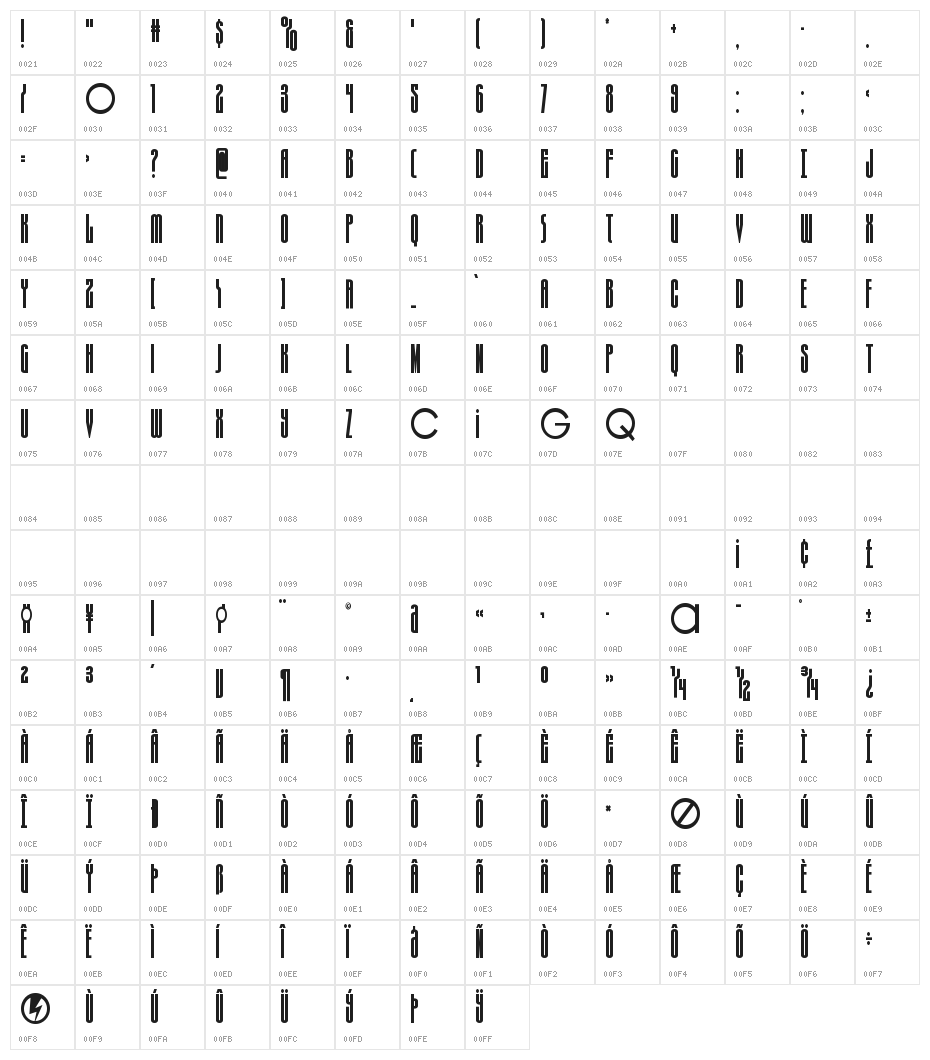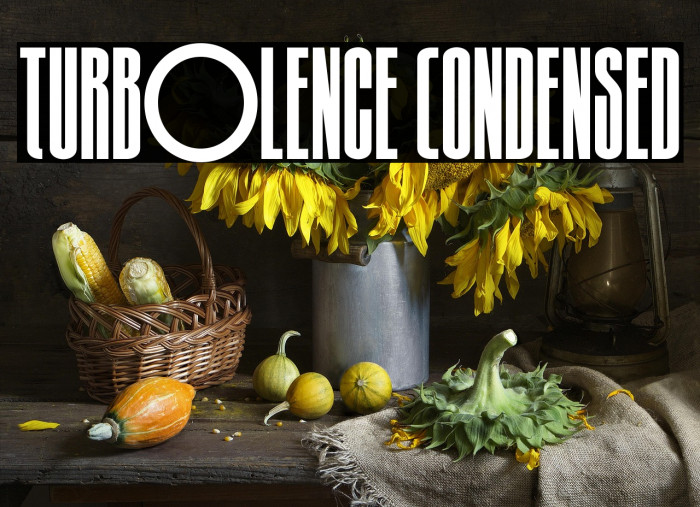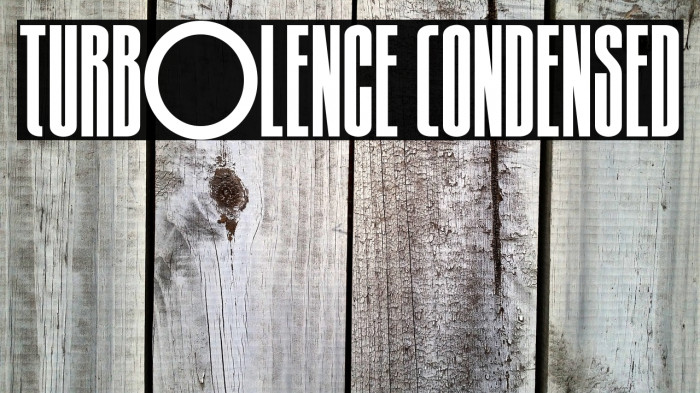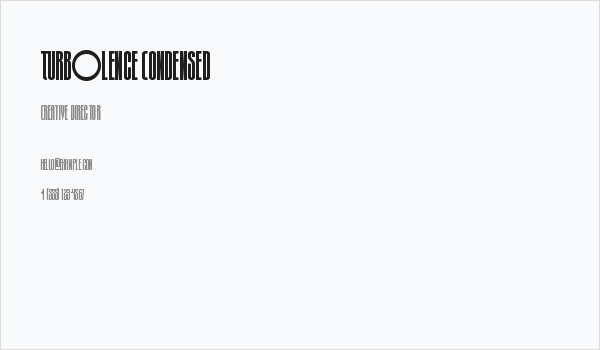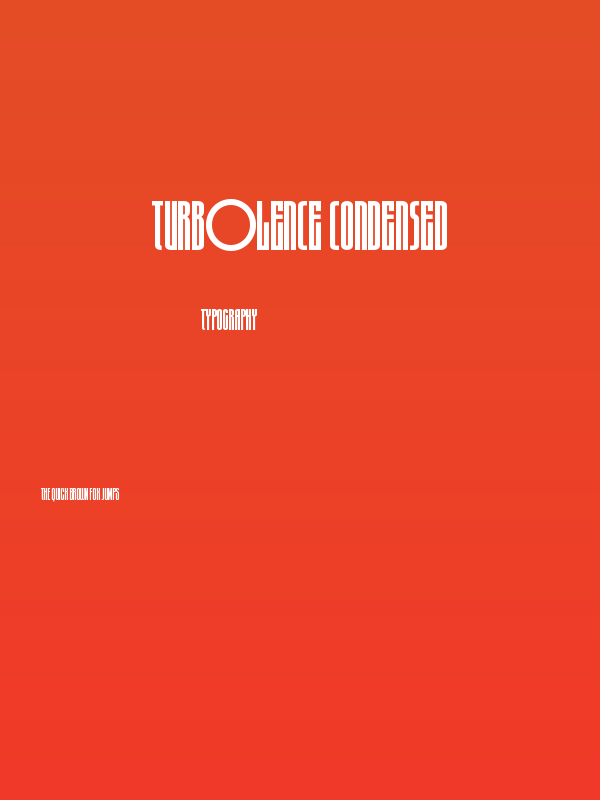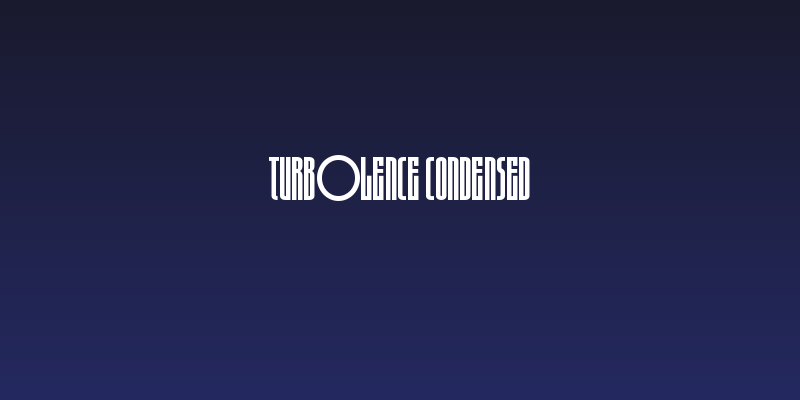
Turb0lence Condensed Font
Turb0lence Condensed Description
This font features a bold and condensed style with a strong vertical emphasis. The characters are tall and narrow, creating a striking and impactful appearance. The uppercase letters are particularly elongated, while the lowercase letters maintain a consistent height, contributing to the overall uniformity of the typeface. The numbers and special characters follow the same condensed structure, ensuring a cohesive look across all elements. The font's design is modern and geometric, with clean lines and minimal ornamentation, making it suitable for contemporary design projects.
| Proposed Projects | Ideal for headlines, posters, branding, and any project requiring a strong visual impact. |